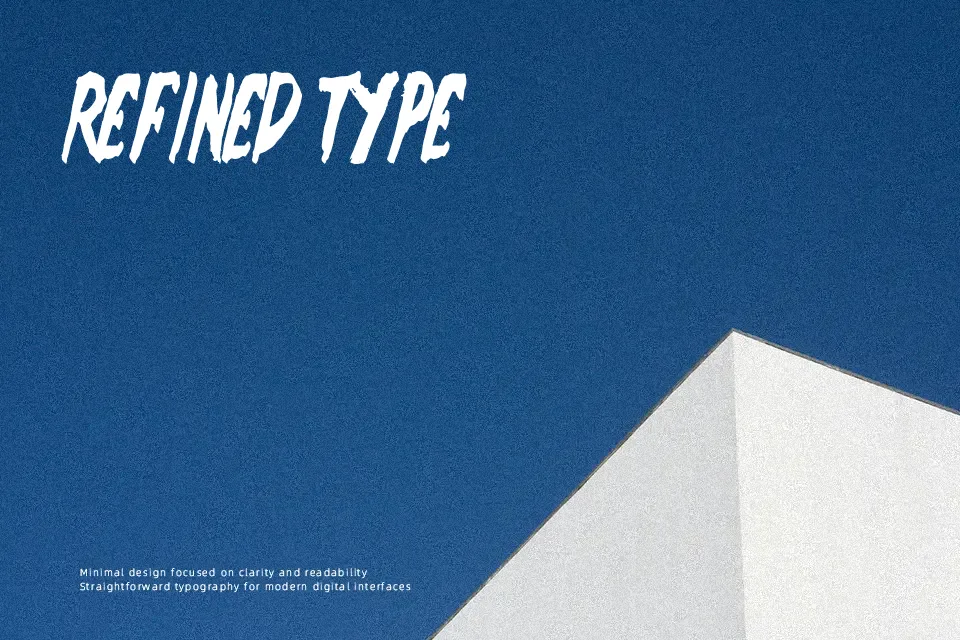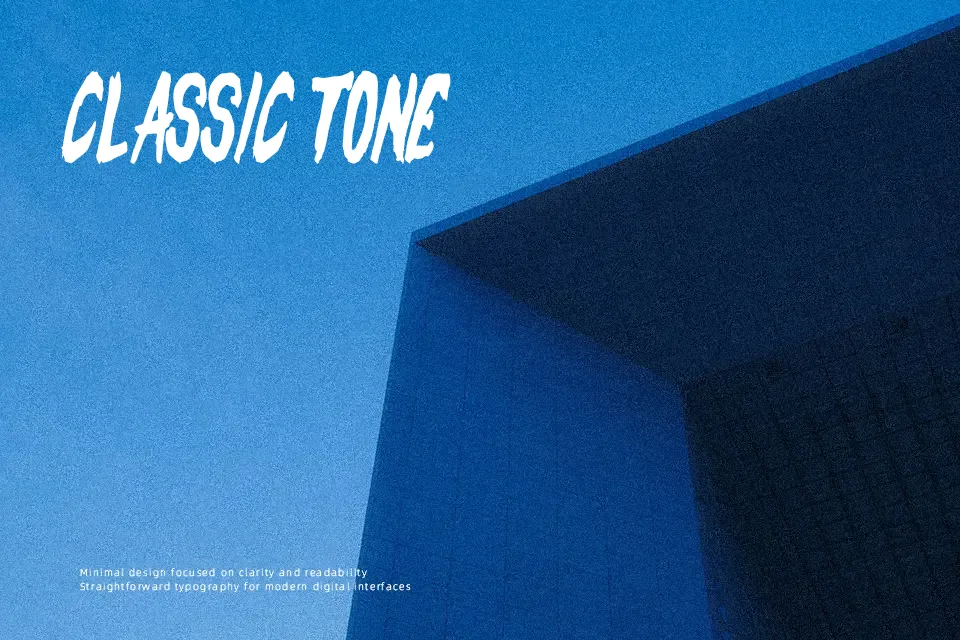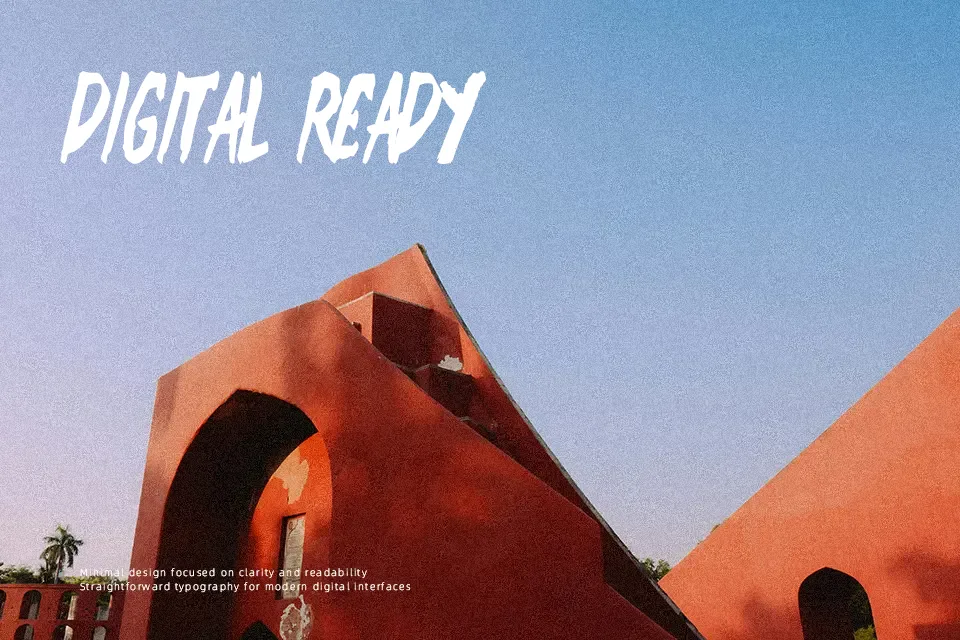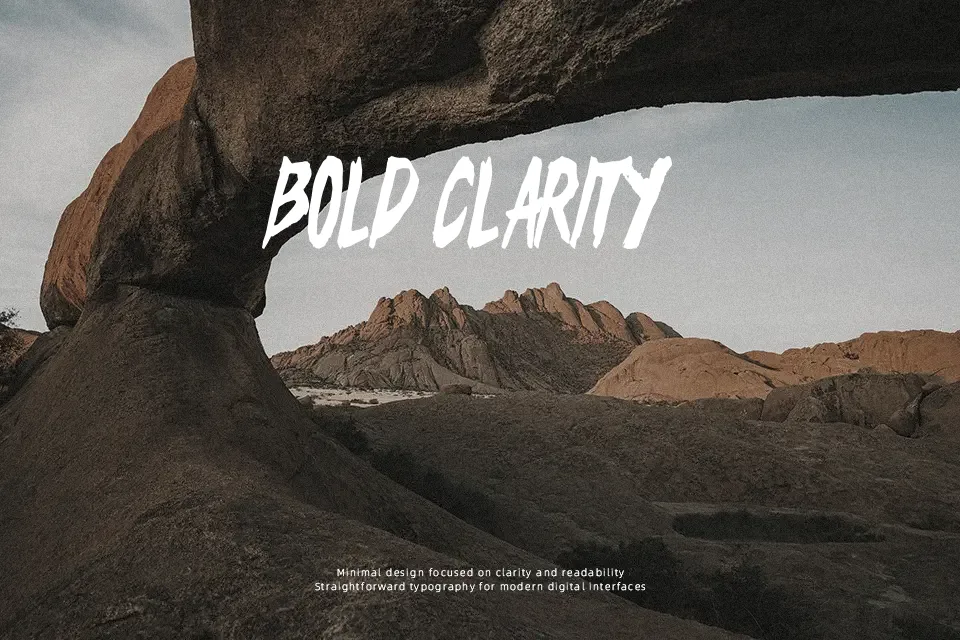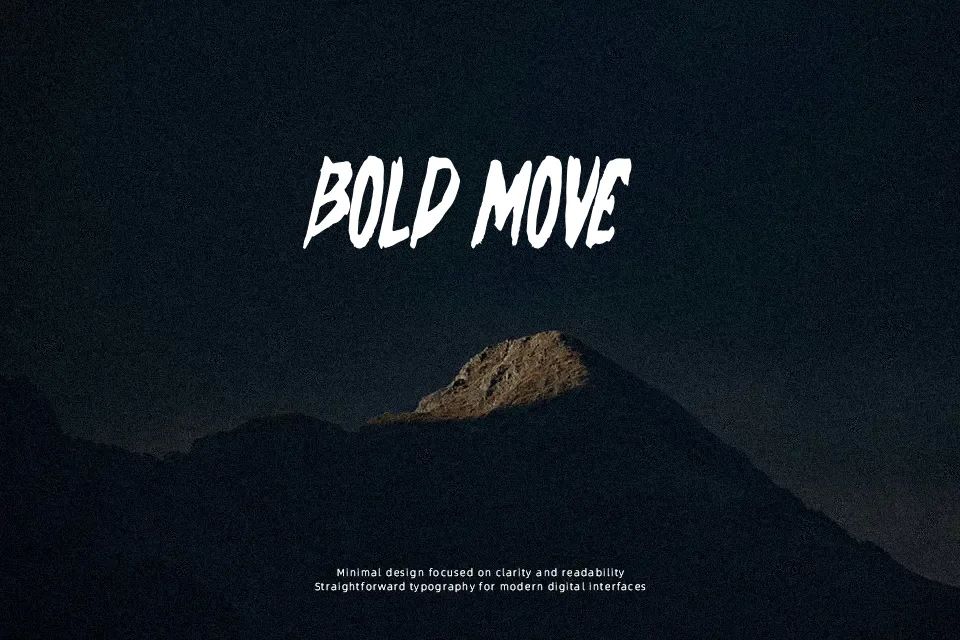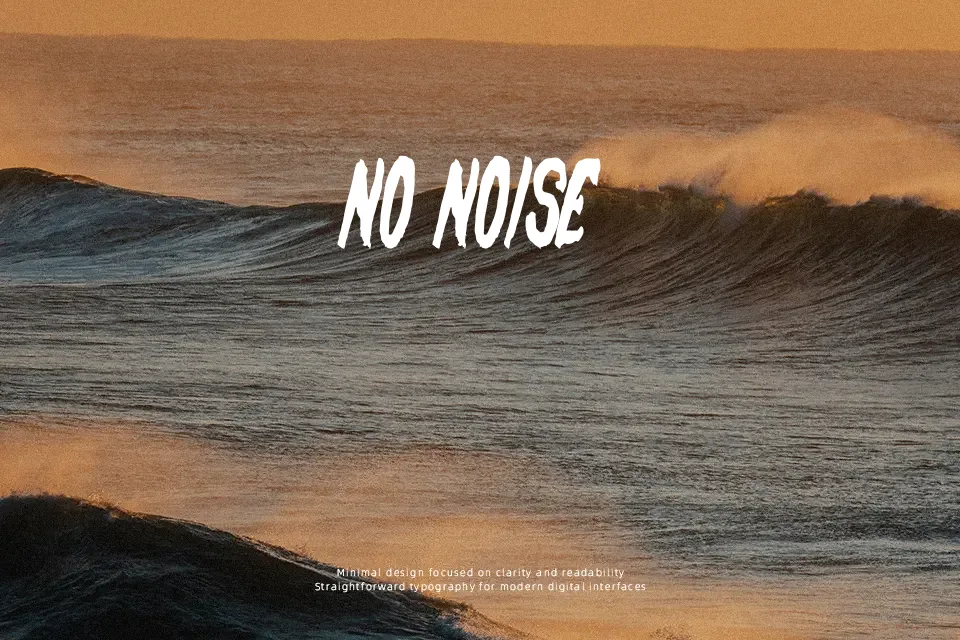
Splash Bleeding Font
Designed by Feri Fauzi
Splash Bleeding Font is built around dense, distressed letterforms defined by chaotic paint splatters and dripping vertical terminals. The typeface exhibits uneven, hand-drawn stroke weights alongside tight horizontal spacing, giving every word a visceral, rugged presence. Proportions remain somewhat erratic, which reinforces the organic decay of the characters while ensuring that individual glyphs stay recognizable at large scales. This design excels in high-impact contexts like haunted attraction signage, heavy metal merchandise, and thriller video game graphics. However, the heavy distressing and descending fluid details drastically impair legibility in smaller interface labels or extended body text.
Best For: horror movie posters, halloween apparel graphics, haunted attraction signage, metal album covers
Not Ideal For: continuous body text, corporate annual reports, mobile interface labels, spreadsheet data
Perfect for film, gaming, and halloween, with a dark and brush style.